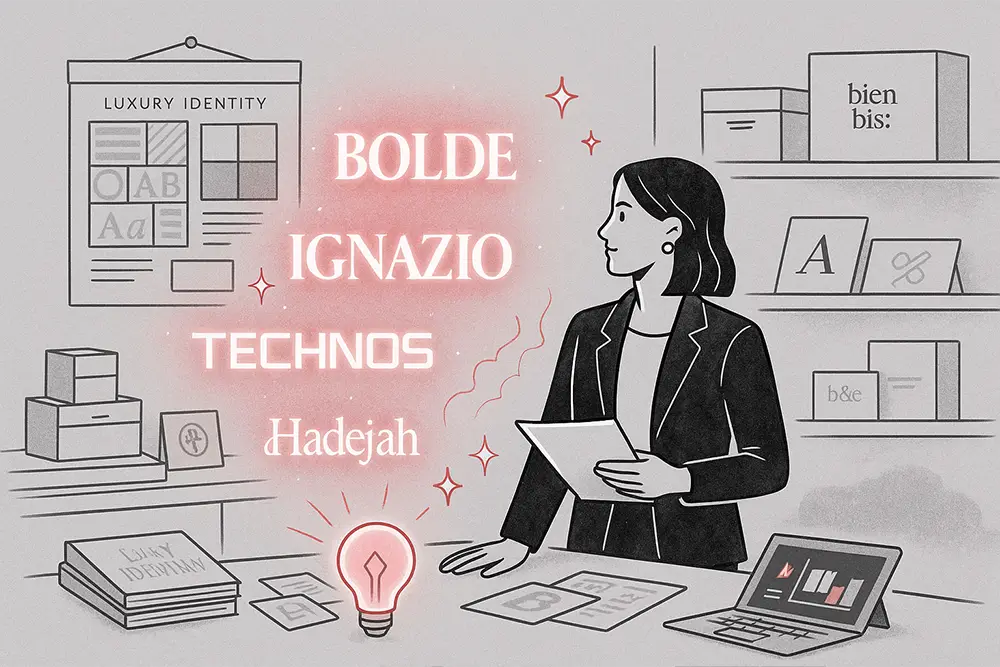
Creating a logo that looks expensive isn’t about piling on gold gradients or elaborate flourishes. It’s about typography that whispers prestige and power—clean, confident, and striking fonts that elevate your branding instantly.
In this article, we’ll break down 10 bold fonts for logo design that don’t just look stylish—they work like magic to boost perceived value. Whether you’re a freelancer, brand owner, or creative director, these fonts are your secret weapon to crafting logos that look like a million bucks.
Typography isn’t just decoration—it’s communication. The right font can say “trust me” or “I’m premium” before a single word is read.
Just ask any branding expert: font choice shapes first impressions. A sleek sans serif can communicate modernity and professionalism, while a futuristic typeface might evoke innovation and progress. This is why selecting the top fonts for logo design is not just a visual decision—it’s a strategic move.
Bolde is built to command attention. With its strong, balanced curves and modern touch, this font is perfect for tech brands, personal branding, and startups that want to appear trustworthy and premium.
Ignazio strikes a unique balance between clean geometry and warm humanist curves. The result? A logo font that feels expensive but approachable, ideal for creative agencies and modern businesses.
If your brand is about high-end fashion, luxury goods, or lifestyle, Huitside is a must-have. This high-contrast serif typeface oozes elegance and refinement.
Want to look expensive and ahead of your time? Technos offers a cutting-edge design perfect for tech startups, apps, or creative tech ventures.
Meta Futura takes futuristic elegance to the next level. Its avant-garde letterforms make your logo unforgettable in digital-first platforms.
If your brand leans toward luxury, beauty, or high-end services, Hadejah adds a handwritten flair with refinement. This signature font blends fluid elegance with exclusivity.
Roadpunks might not be what you expect in a luxury list—but hear us out. Its raw, rebellious vibe screams bold confidence—perfect for edgy fashion, urban brands, or anything that disrupts the norm.
Darksht gives your brand the edge it needs to stand out with unapologetic boldness. Its graffiti roots make it perfect for modern brands that want to mix street energy with logo clarity.
Fast Blaze brings movement and energy into every letterform. This all-caps font radiates speed, urgency, and power, making it a killer choice for high-impact logo design.
Spark Boys may look playful, but don’t underestimate its visual presence. Its quirky boldness and clean forms are perfect for brands targeting younger audiences with fun yet premium appeal.
Most people choose fonts by sight. But as designers, we believe fonts should be chosen by what they make people feel.
Every typeface above was selected not just for how it looks—but for how it transforms a brand’s emotional tone. A strong font builds authority. A graceful script sparks intimacy. A futuristic font ignites ambition.
If you want your audience to feel trust, awe, or desire the moment they see your logo—your font must carry that emotion before the tagline even loads.
Great logos don’t just “look good.” They communicate confidence. They make your brand feel like it has gravity, vision, and value.
So don’t settle for generic typography.
Use these bold, strategic fonts to: